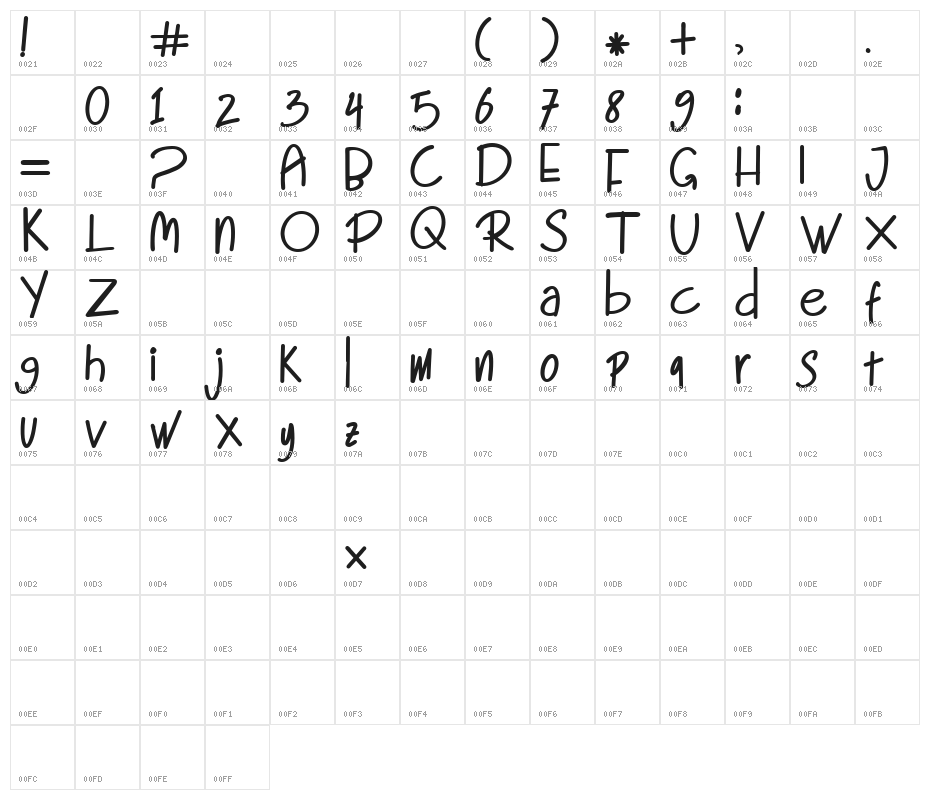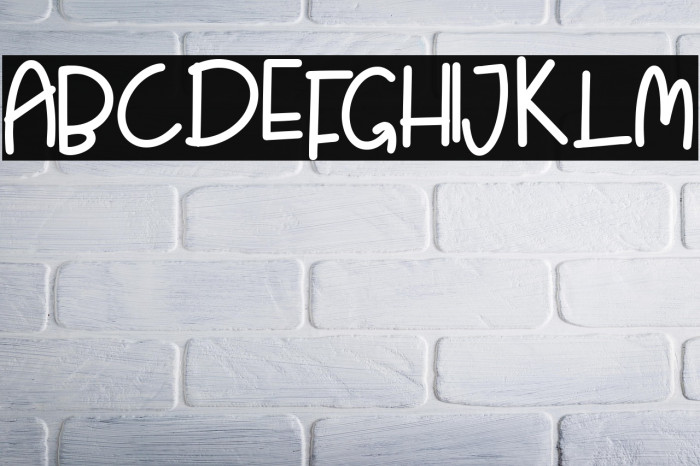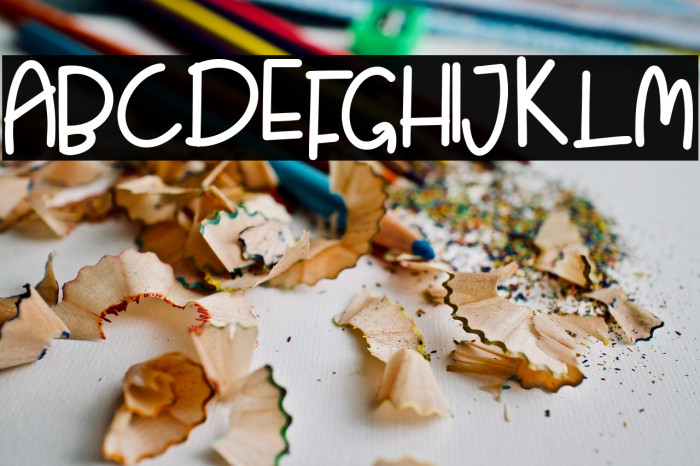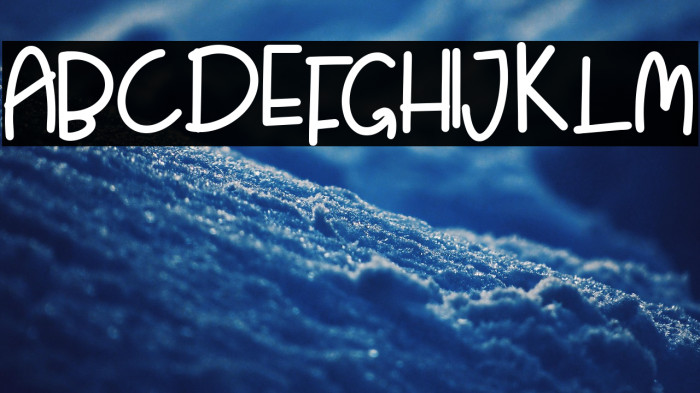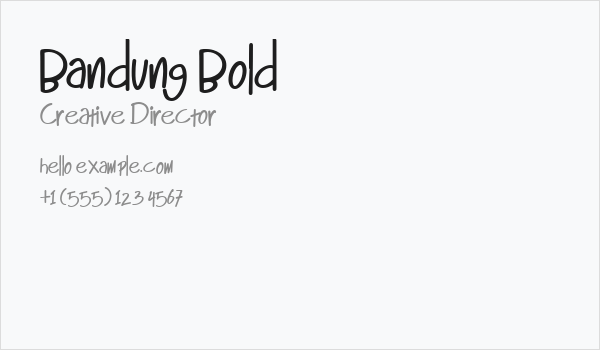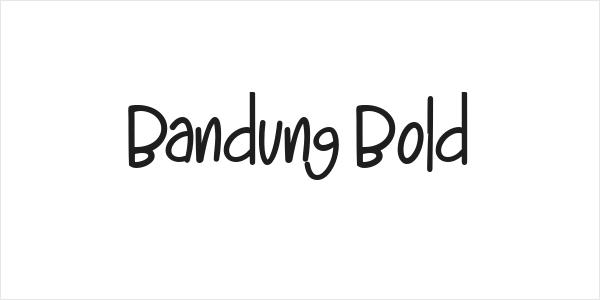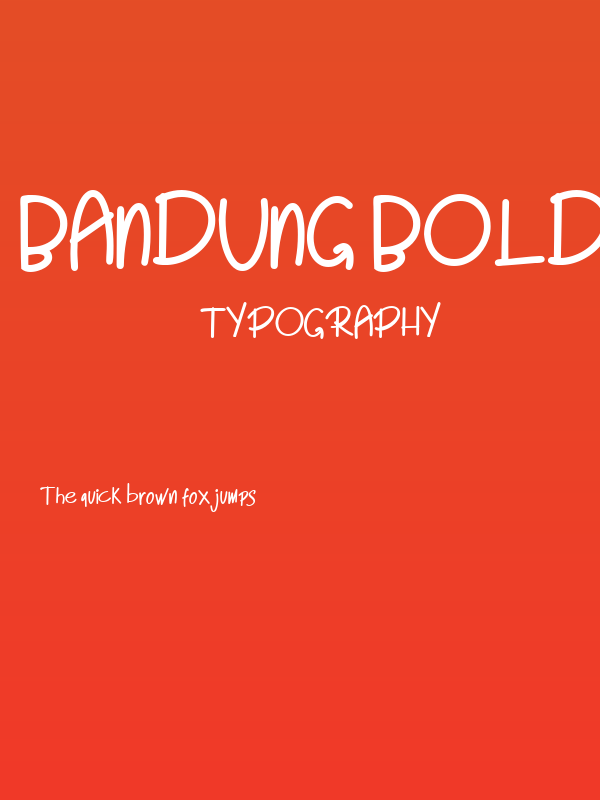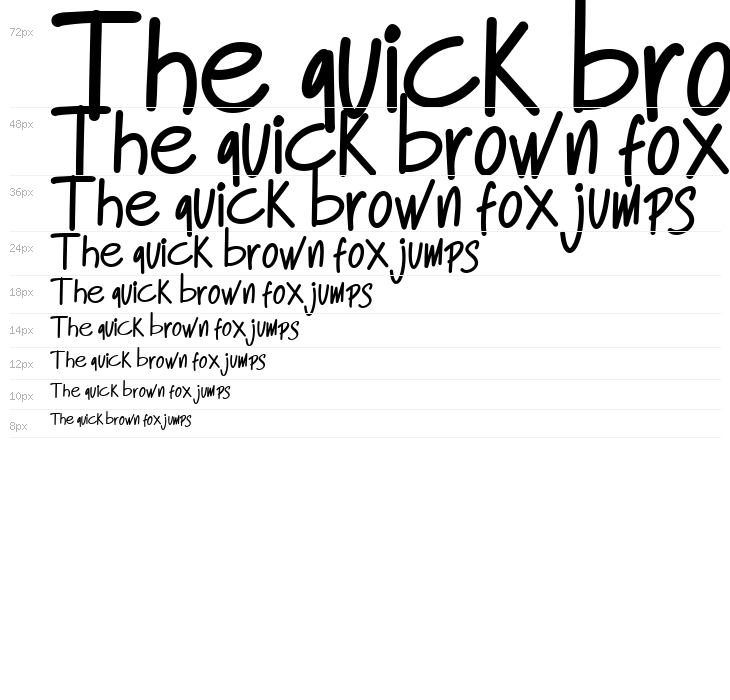
Bandung-Bold Font
Bandung-Bold Description
This font features a playful and casual handwritten style, characterized by its bold and slightly irregular strokes. The letters have a lively and informal appearance, with a mix of rounded and angular elements that give it a unique personality. The uppercase and lowercase letters maintain a consistent flow, while the numerals and special characters complement the overall design. The font's boldness makes it stand out, while its handwritten nature adds a personal touch, making it suitable for projects that require a friendly and approachable aesthetic.
| Use Case | Headlines, Logos, Informal Invitations |
| Proposed Projects | Ideal for greeting cards, children's books, playful branding, and social media graphics. |